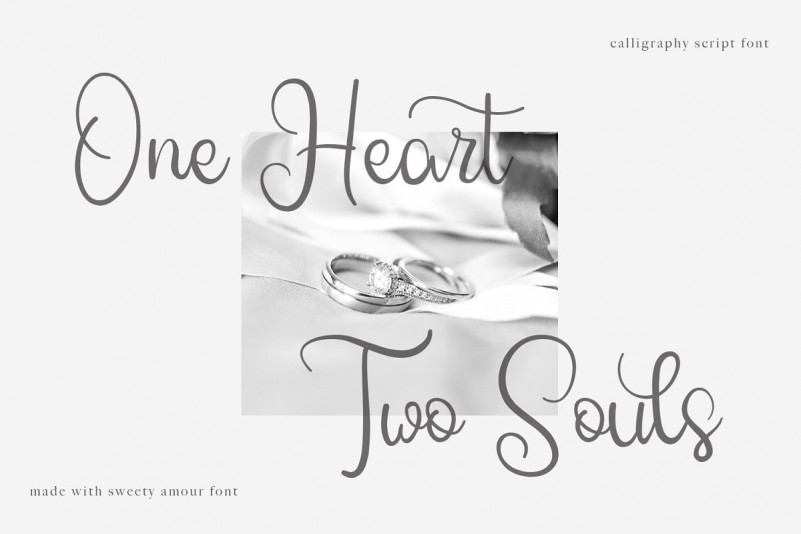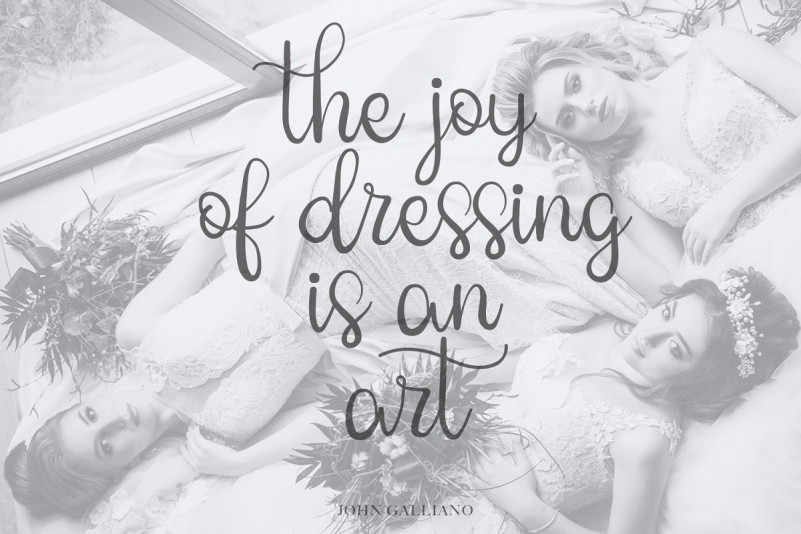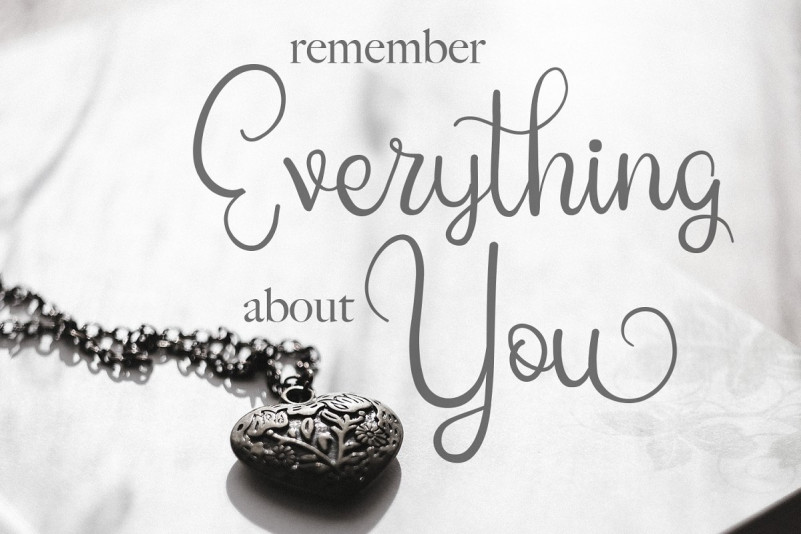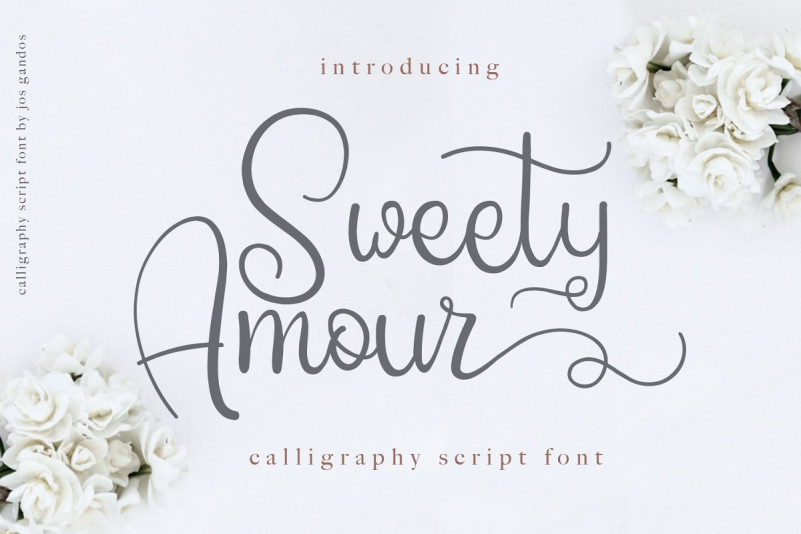
Sweety Amour Script Font
Sweety Amour Script Demo Font
Hello friend. This a lovely calligraphy font with romantic taste, elegant, and gorgeous script font that very recommended to be your wedding font. Introducing Sweety Amour Font. Sweety Amour Script Font is modern calligraphy font with sophisticated and romantic style. It is perfect for branding, wedding, photography, and any design related to feminine design.
Sweety Amour Calligraphy Font contains standard characters, lowercase, uppercase, numbers, punctuation, ligatures, international characters and stylistic set as opentype feature.